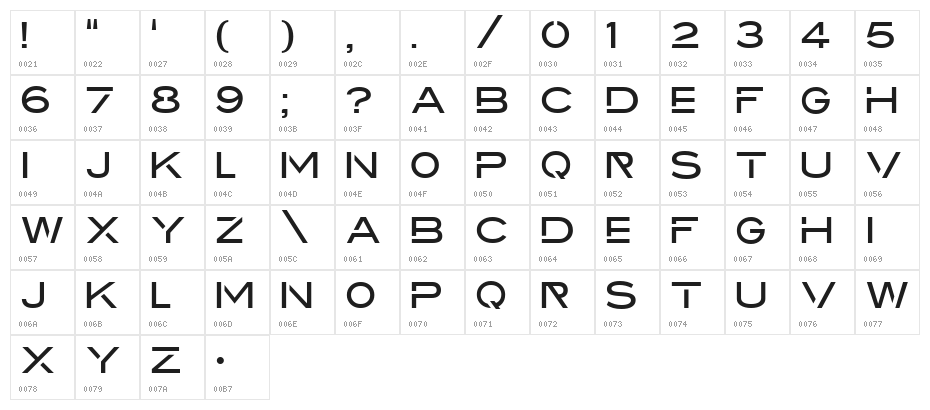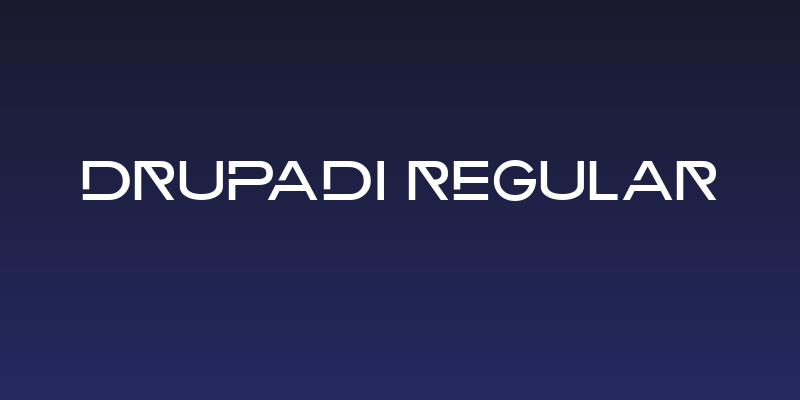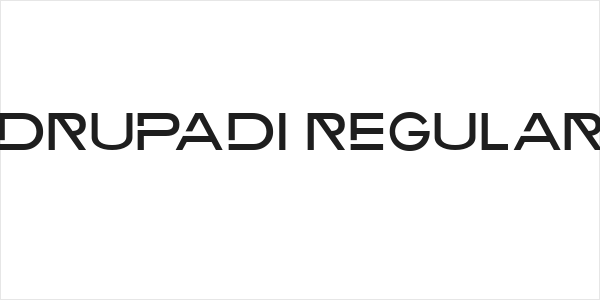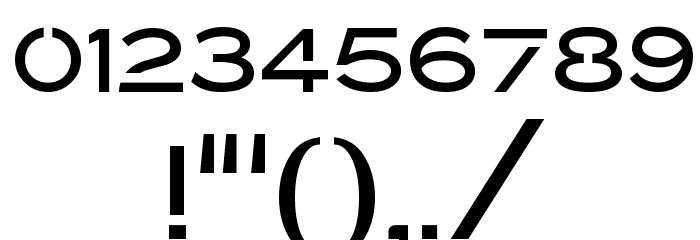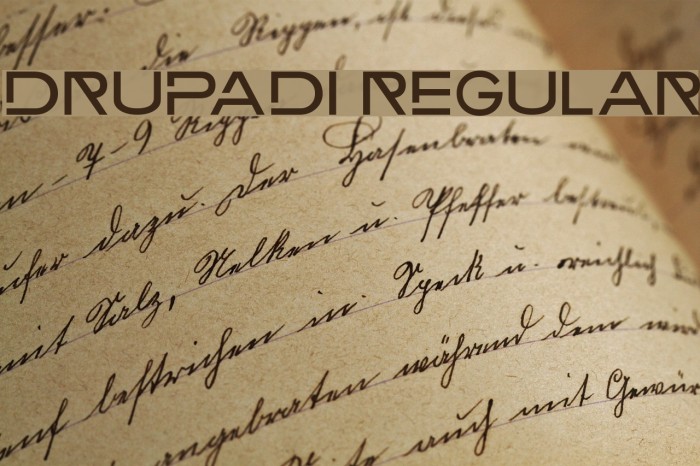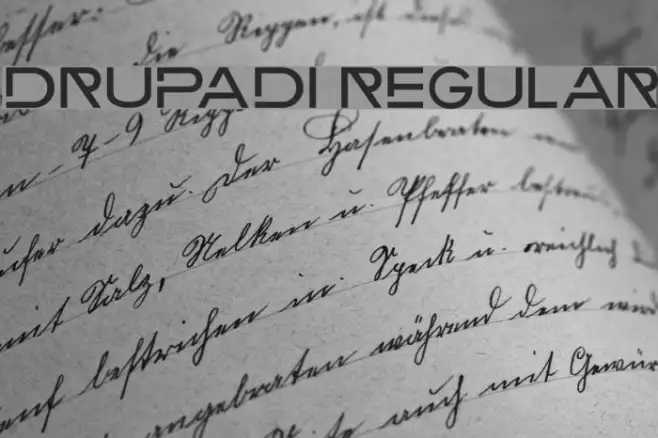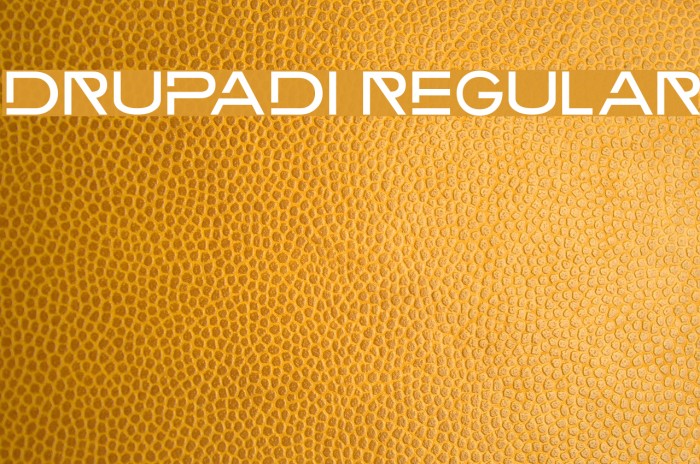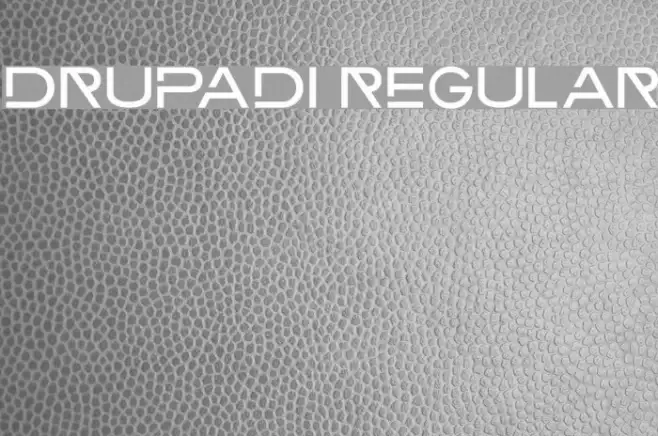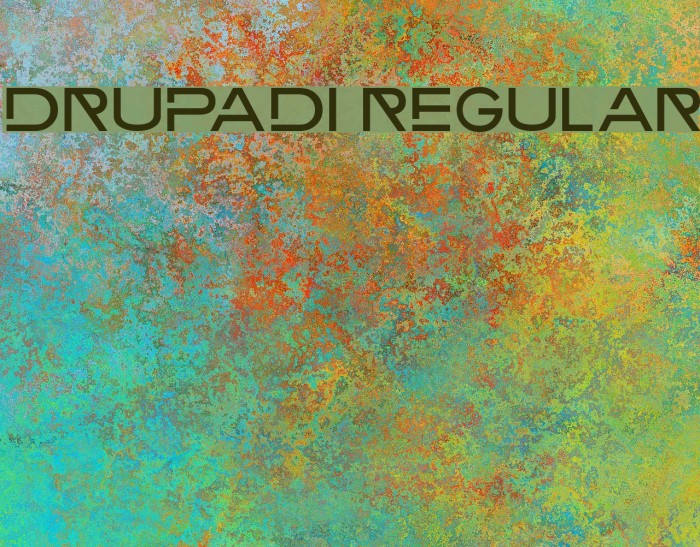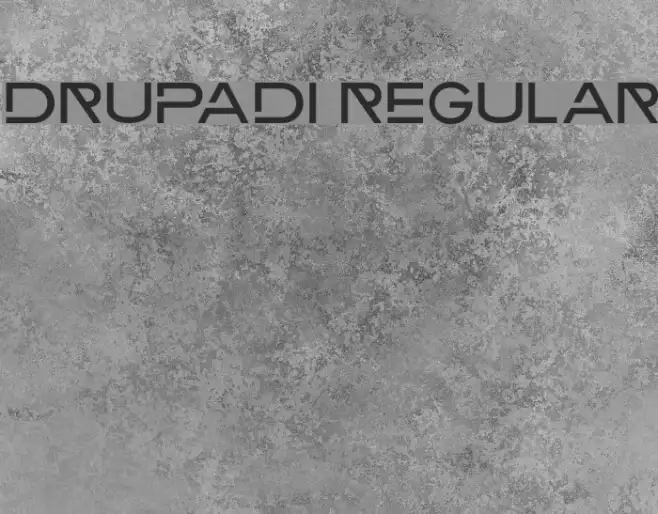
Drupadi Regular Font
Drupadi Regular Description
This font features a modern, geometric design with clean lines and a bold presence. The characters are constructed with a consistent stroke width, giving it a uniform appearance. The uppercase letters are particularly striking, with angular cuts and a futuristic feel. The numerals and special characters maintain the same geometric style, ensuring a cohesive look across all elements. The font's structure is both functional and stylish, making it suitable for a variety of design applications.
| Proposed Projects | Ideal for branding, headlines, posters, and digital interfaces where a modern and bold aesthetic is desired. |